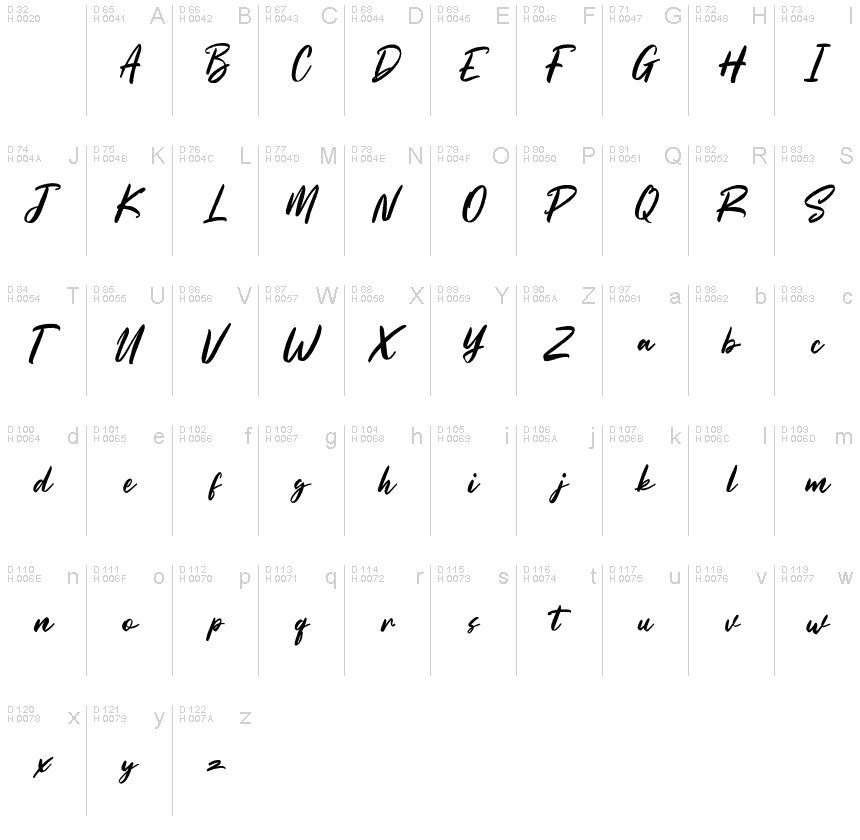
Katvondy Free Regular
Katvondy is a stunning brush font designed by Maulana Creative. Its bold and expressive strokes make it perfect for a variety of creative projects, from branding to social media graphics and everything in between. With its unique and eye-catching style, Katvondy is sure to grab attention and leave a lasting impression. Whether you're designing a logo for your business or creating posters for an event, this semi-bold font will add character and personality to any project. Its versatile width makes it suitable for both headlines and body text, giving you the freedom to experiment and create something truly unique.